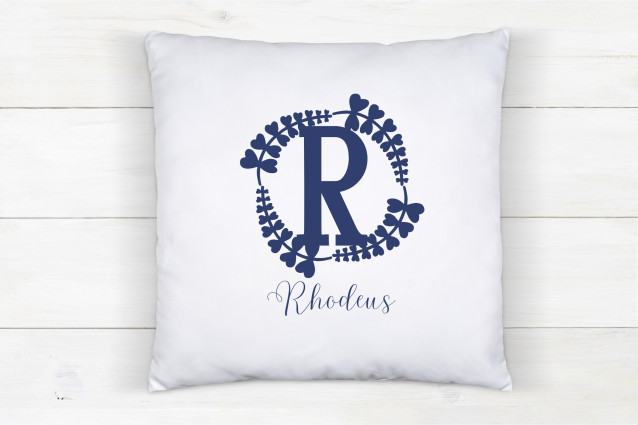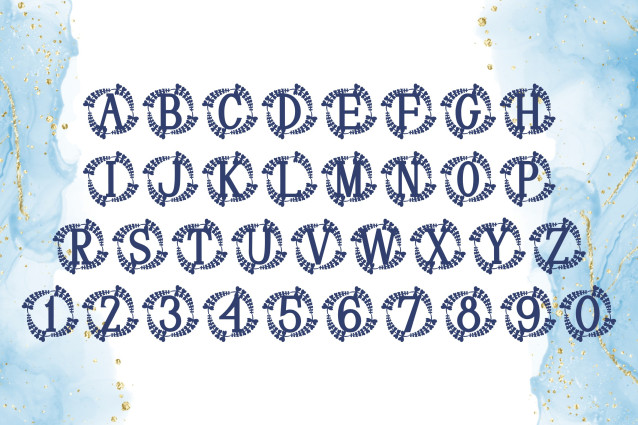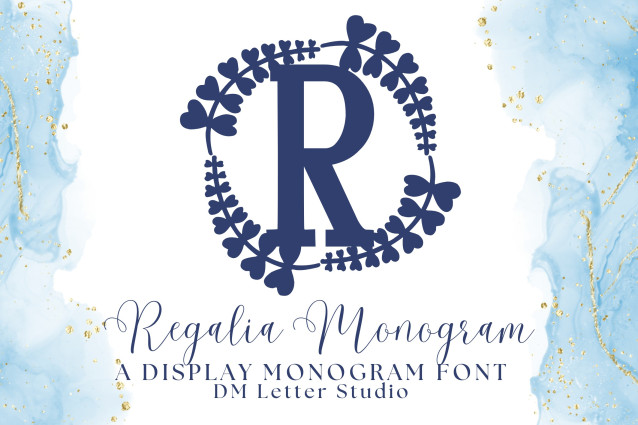
Regalia Monogram Font
Regalia Monogram Font is an elegant serif monogram font designed to bring prestige, refinement, and timeless beauty to your creative work. Each uppercase letter is crafted with stately details that make it ideal for projects requiring a sense of grandeur and sophistication. Perfect for weddings, luxury branding, boutique logos, packaging, signage, and personalized stationery, this font delivers a regal presence with versatile usability.
The design of Regalia Monogram blends traditional serif structure with subtle decorative accents, giving it both strength and grace. Its bold yet elegant forms ensure that monograms stand out clearly while retaining a refined look. Whether you’re creating wedding invitations, branding for a luxury boutique, or personalized gifts, Regalia Monogram provides the upscale aesthetic your project deserves.
With its majestic flair, Regalia Monogram adapts beautifully to upscale branding, high-end packaging, wedding stationery, and decorative monogram designs. Its versatility makes it a go-to choice for designers who want to combine luxury with readability.